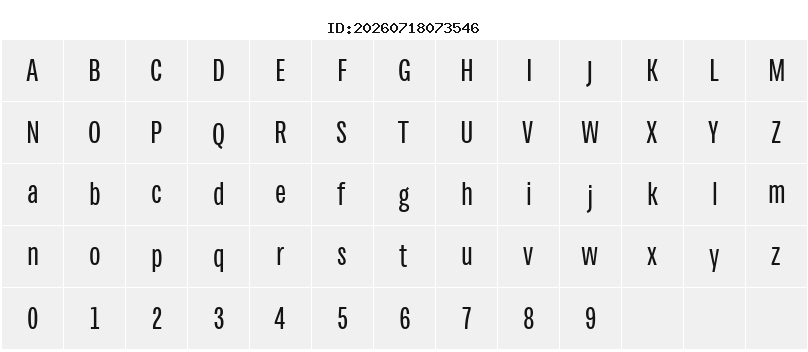
ChartwellTextCompPro Preview
• Font Name: ChartwellTextCompPro
• Full Font Name: ChartwellTextCompPro
• Designer: Travis Kochel
About ChartwellTextCompPro.ttf
ChartwellTextCompPro.ttf is a modern, elegant sans-serif font designed for ultimate readability and visual harmony. Perfect for branding, headlines, web design, and print materials.